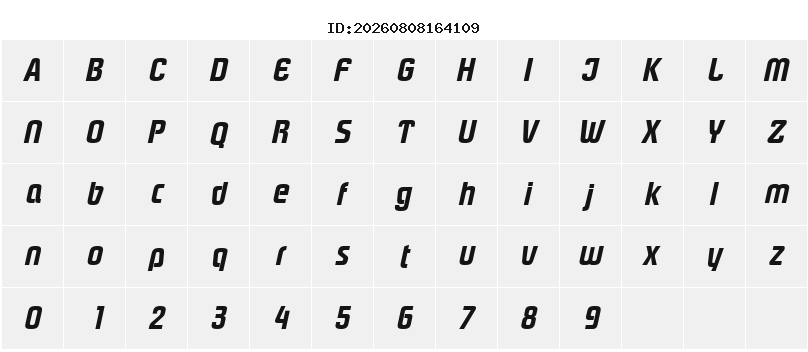
• Font Name: PloverExtrabold
• Font ID: Weatherly Systems, Inc. PloverExtrabold Italic
• Full Font Name: PloverExtrabold Italic
About PloverExtrabold.ttf
PloverExtrabold.ttf is a modern, elegant sans-serif font designed for ultimate readability and visual harmony. Perfect for branding, headlines, web design, and print materials.